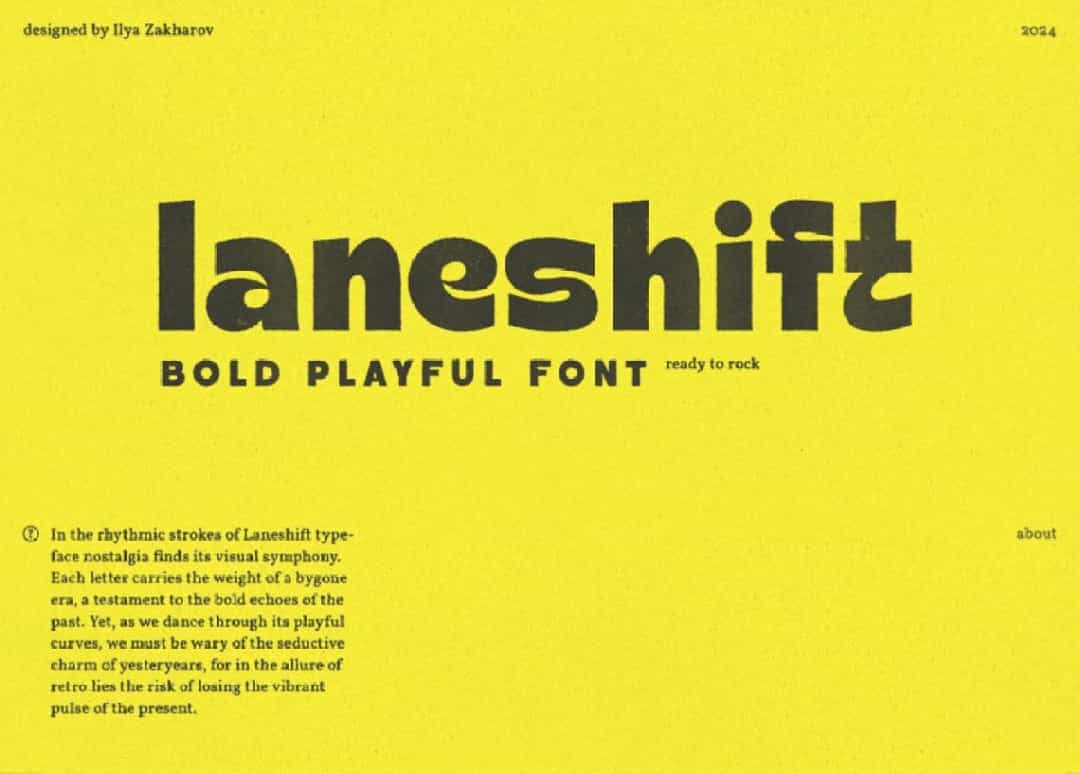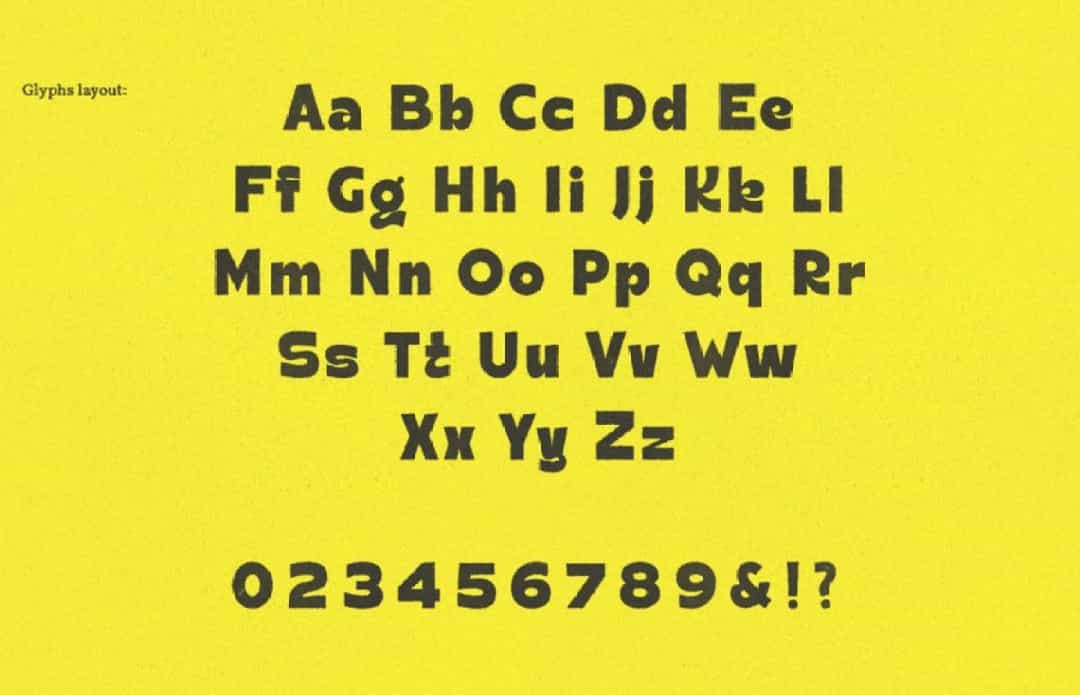
Laneshiftis a retro-inspired and bold display typeface from the 50s through 90s that brings back nostalgia to designs reminiscing those eras. Perfect for vintage-inspired designs with a hint of humor or nostalgia; suitable for logos, stickers packaging posters branding invitations notes etc.